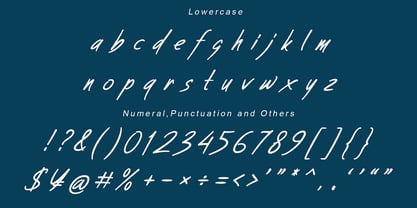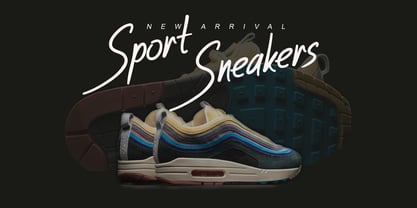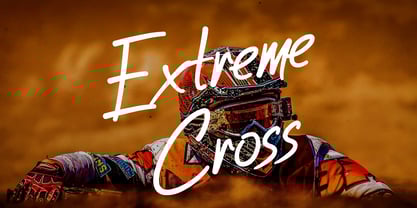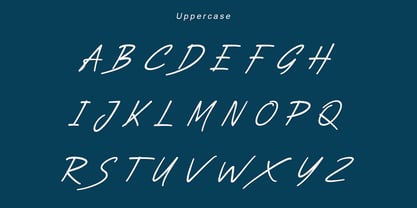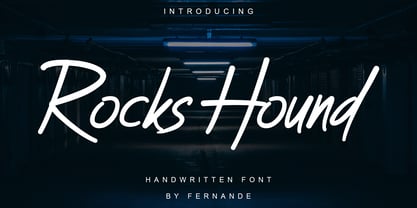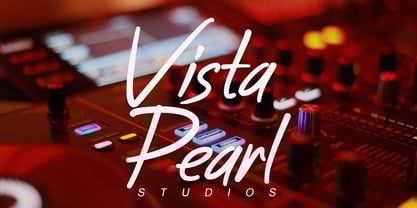
Rocks Hound
by Fernande
The Rocks Hound Font Family was designed by Angga Fernandi and published by Fernande. Rocks Hound contains 1 styles.
Introducing Rocks Hound, a unique handwritten font encapsulating style and influence in every stroke. Displaying handwriting’s finesse blended with strong, definitive characters, Rocks Hound creates an identity all its own. The font shapes are dynamic, with a slightly casual touch, exuding spontaneity and laid-back feel. Its bold and refined lines offer a natural flair, adding an element of the unplanned, yet pleasing randomness. Perfectly suited to designs aiming to evoke a relaxed yet distinctive ambiance, Rocks Hound is ideal for creative branding, impactful posters, and other daring designs. Explore the dynamism of Rocks Hound and let your artistry shine through.